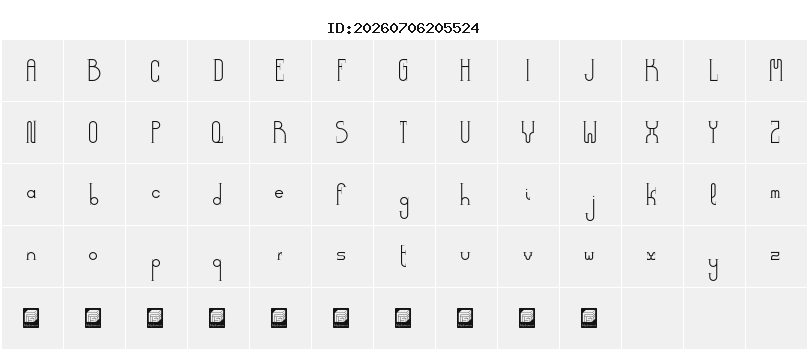
Democrazy Serif Light Preview
• Font Name: Democrazy Serif Light
• Full Font Name: DemocrazySerif-Light
• PostScript Name: DemocrazySerif-Light
• Designer: Gilberto Moya
• Manufacturer: Pisto Casero
About Democrazy Serif Light.otf
Democrazy Serif Light.otf is a modern, elegant sans-serif font designed for ultimate readability and visual harmony. Perfect for branding, headlines, web design, and print materials.